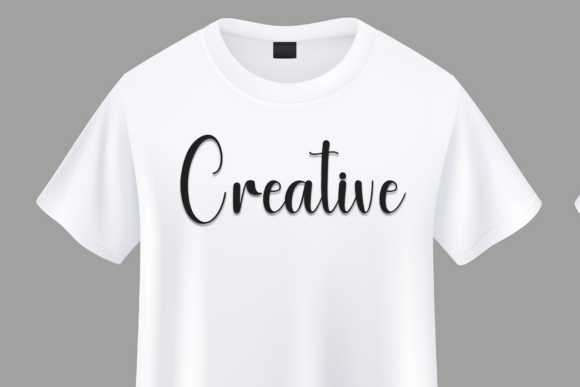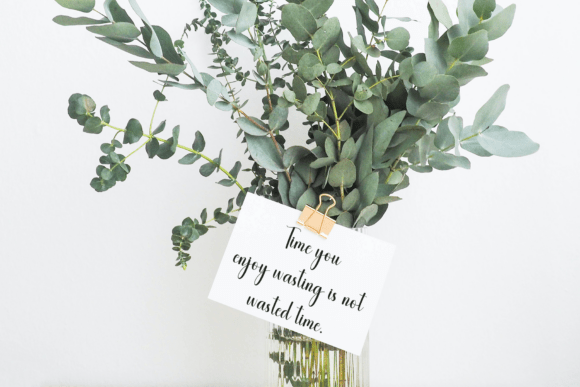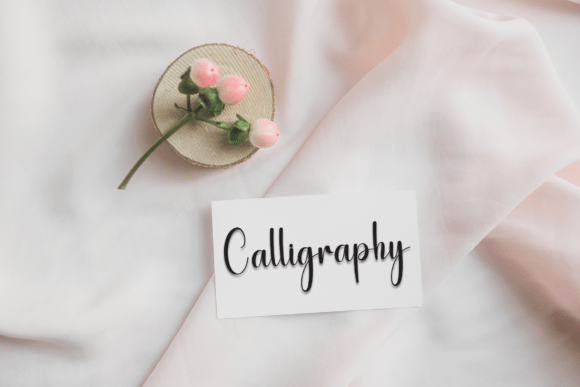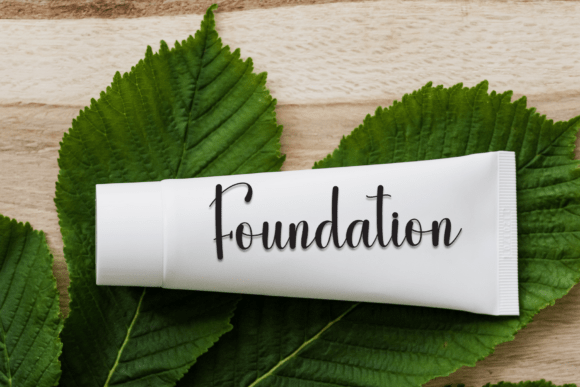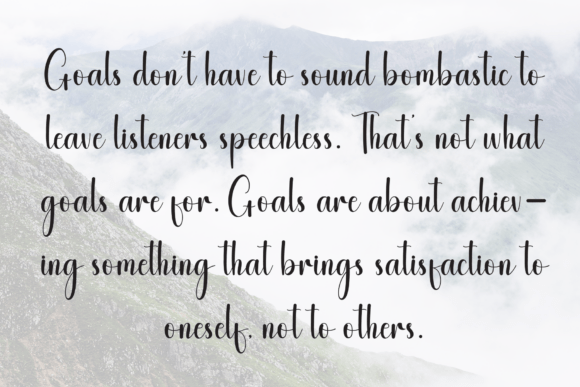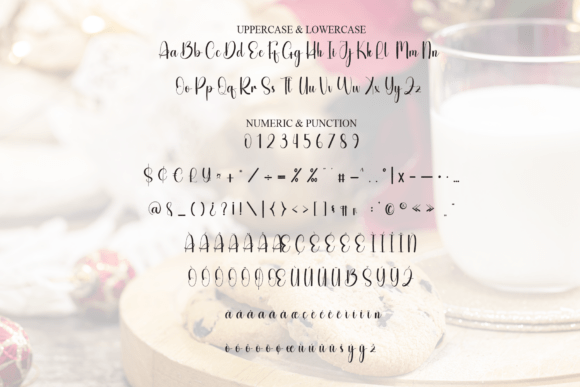
Introduction to Milky Christmas Font Font
Fonts play a crucial role in design, and the Milky Christmas Font font is a typeface that brings both character and versatility to any project. Whether you’re working on a branding project, a website, or a print design, the Milky Christmas Font font offers a unique style that can elevate your work.
Milky Christmas is a festive handwritten font that brings warmth and nostalgia to every letter.
With its cozy curves and simple charm, itβs ideal for Christmas cards, holiday packaging, product tags, or winter-themed social media content It’s soft like a warm mug of cocoa and sweet like cookies with milk.
Key Features of Milky Christmas Font Font
Why Choose Milky Christmas Font Font?
The Milky Christmas Font font is more than just a typeface β it’s a design tool that helps you communicate your message with style and clarity. Its unique character set and versatile design make it suitable for a wide range of applications, from elegant invitations to bold headlines.
With its carefully crafted letterforms and balanced proportions, the Milky Christmas Font font ensures readability and visual appeal across all mediums.
What makes Milky Christmas Font font special?
The Milky Christmas Font font stands out with its unique design, exceptional readability, and versatility across various design applications.